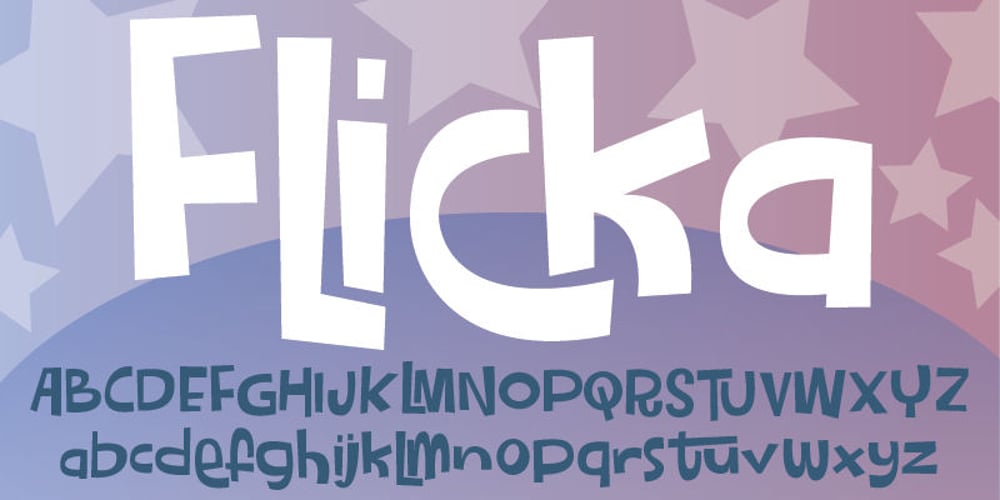
Flicka
Flicka font
Flicka Font Family was designed by Jakob Fischer and published by PizzaDude.dk. Flicka contains 1 styles and family package options. Flicka is a super funky font that oozes of fun and games. Every single letter has got it’s personality of its own! And, what’s even better: the Flicka font comes with ligatures for both lowercase-lowercase, uppercase-lowercase and uppercase-uppercase! 154 different ligatures in total! You will need to use OpenType supporting applications to use the autoligatures.